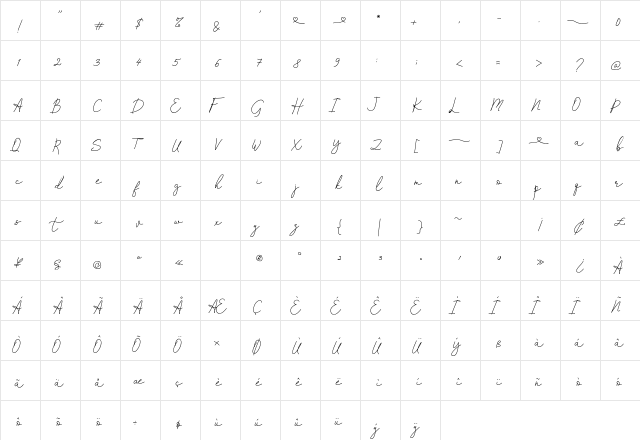
Brownis Regular
Design Context for Brownis Typeface
Brownis is a composed and adaptable typeface that performs quietly and consistently across a wide range of design contexts.